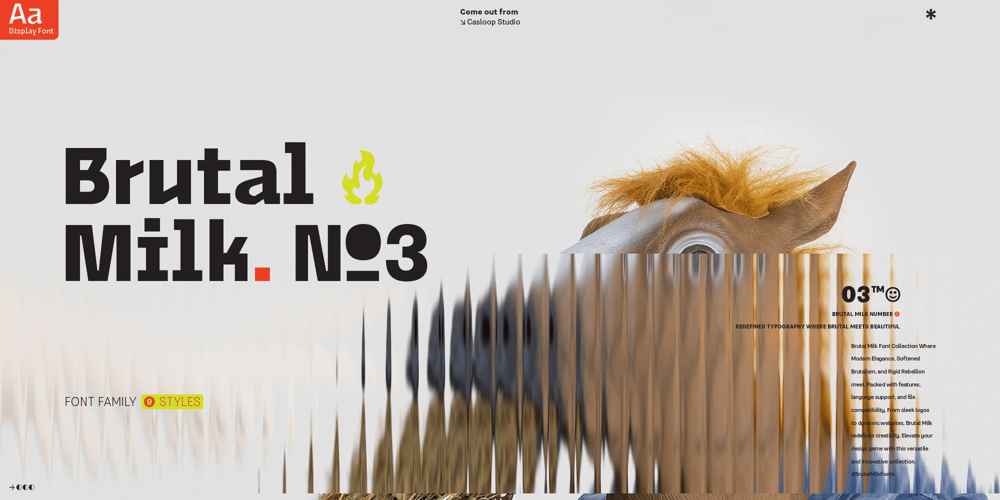
Brutal Milk No 3 Font Family was designed by Wantara Putra and published by Casloop Studio. Brutal Milk No 3 contains 9 styles and family package options. Dear Reviewer Team,Completing the trilogy, Brutal Milk No. 3 Display is our grand finale. This font embodies sophistication and innovation, aiming to provide users with a distinctive and memorable visual element for their creative projects. We believe it enriches the Trilogy font family, offering a comprehensive solution for diverse design needs.We appreciate your time and consideration in reviewing our submission. If you have any questions or require additional information, please feel free to reach out. We look forward to the opportunity to contribute to the marketplace’s diverse and high-quality font offerings.Thank you for your attention. Best regards, Nina ๐